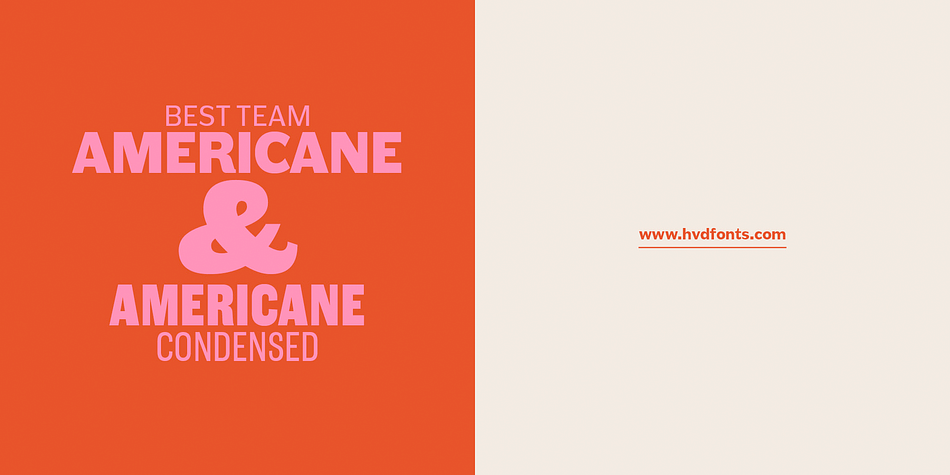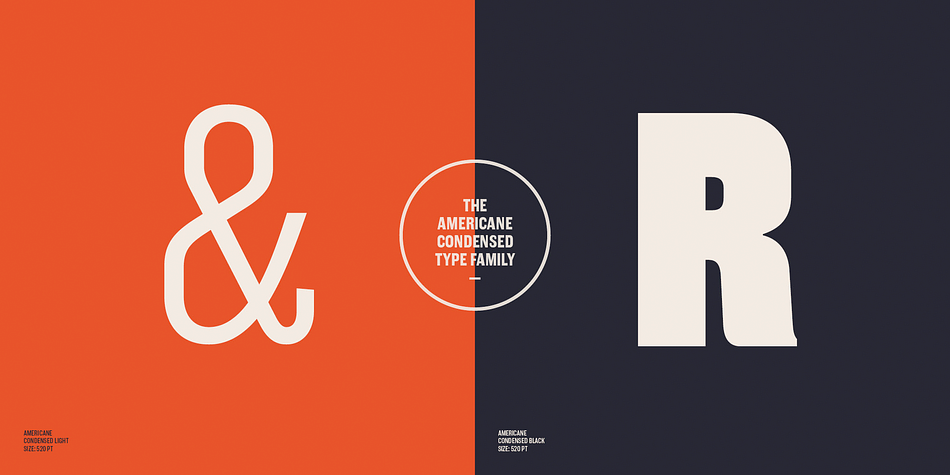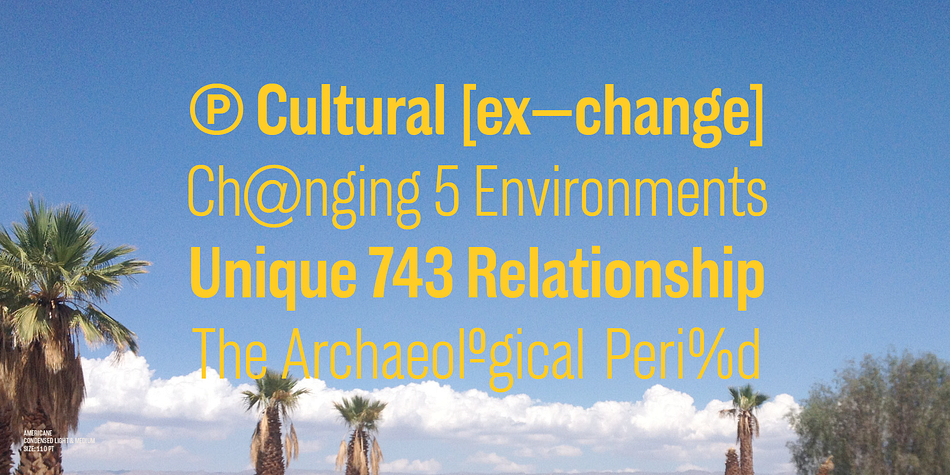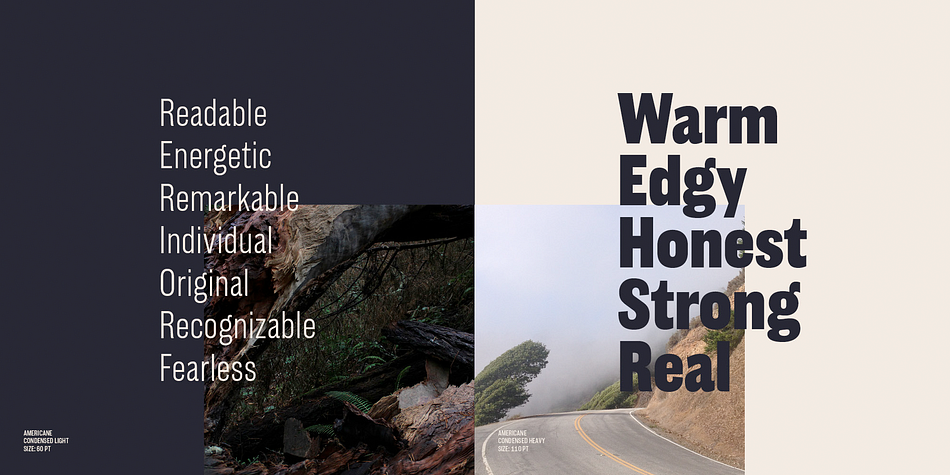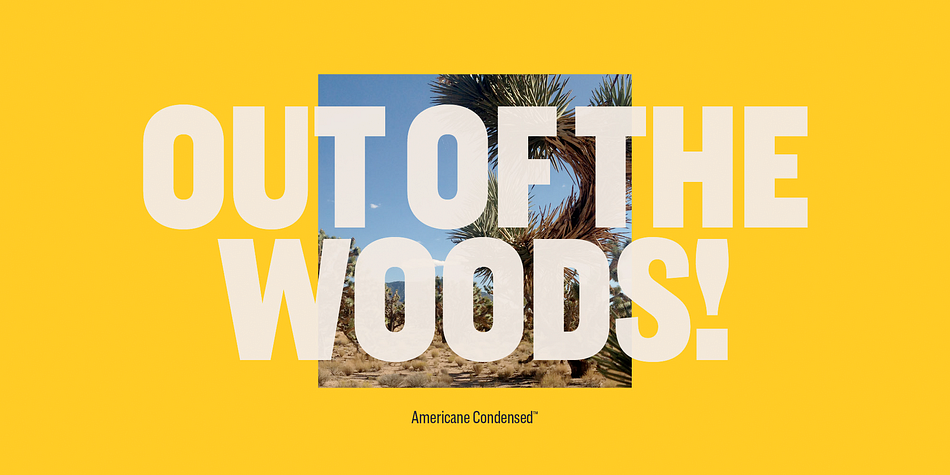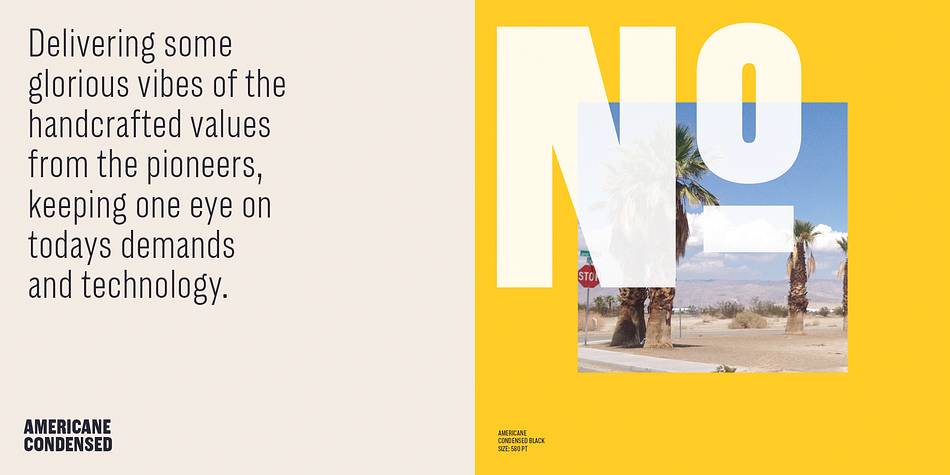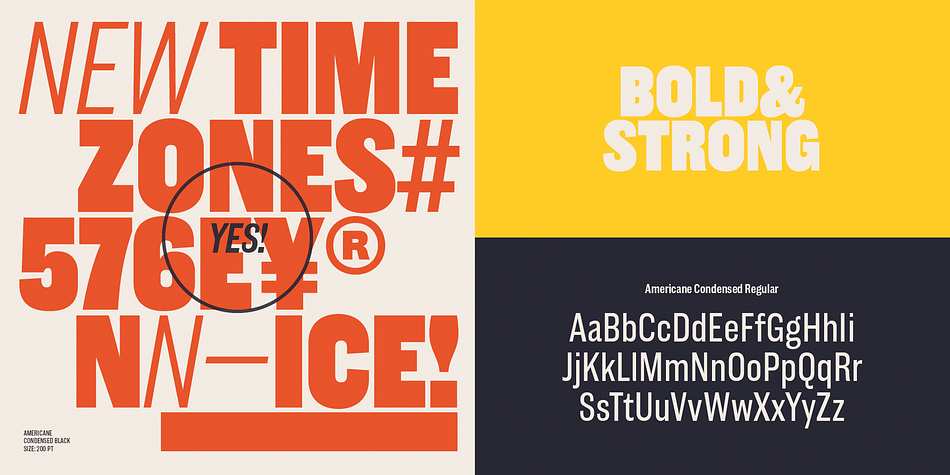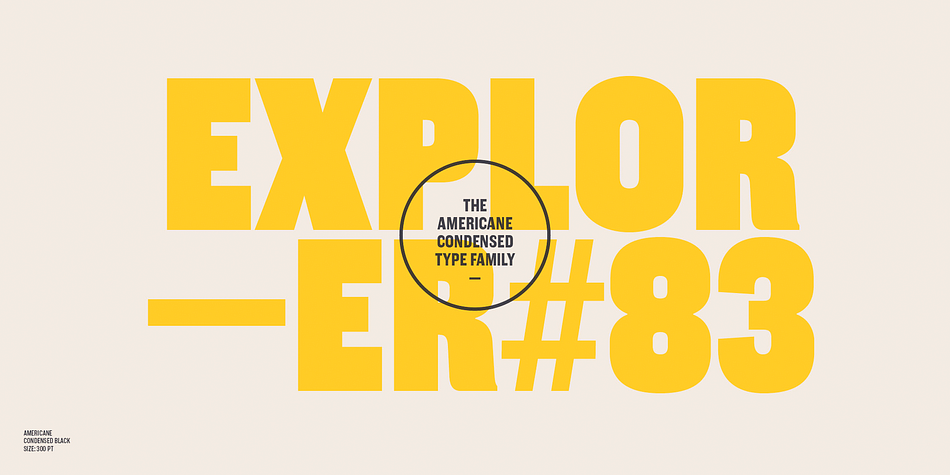
Designed by Hannes von Döhren, Americane Condensed is a sans serif font family. This typeface has twelve styles and was published by HVD Fonts.
“It’s all about Soul!” – Strong, decided and edgy. The Americane super family is inspired by the old wood type specimen books. Delivering some glorious vibes of the handcrafted values from the pioneers AND keeping one eye on todays demands and technology, Americane is made for high professional use.
Americane Condensed & Americane is a super family of 24 fonts in total – a normal and a condensed width in six weights with matching italics. Made for complex, professional typography, the OpenType fonts feature five variations of numerals, alternate letters, arrows and an extended character set to support Central and Eastern European as well as Western European languages.